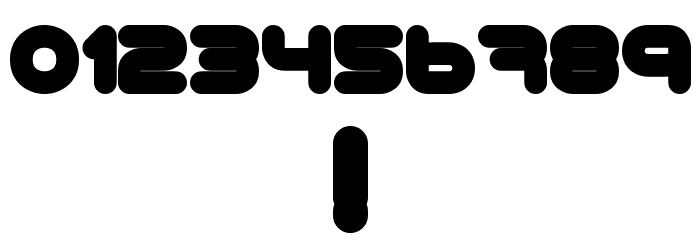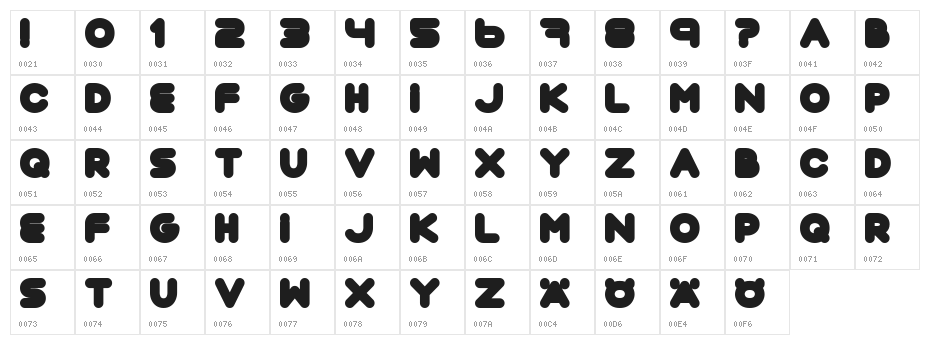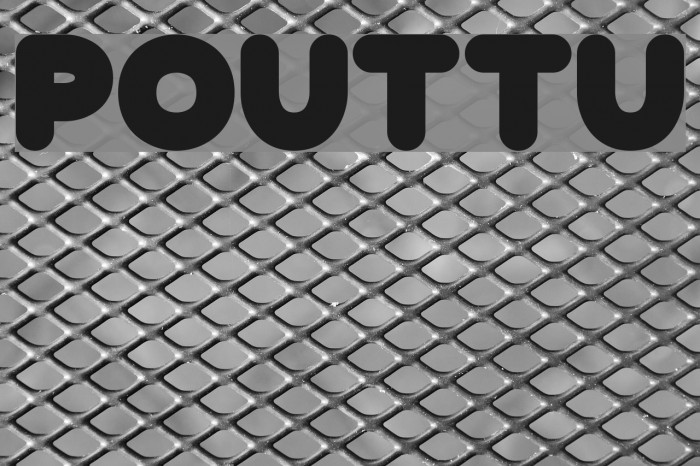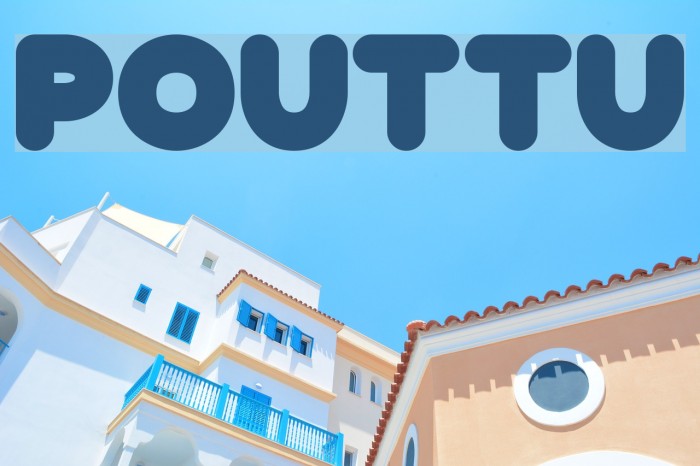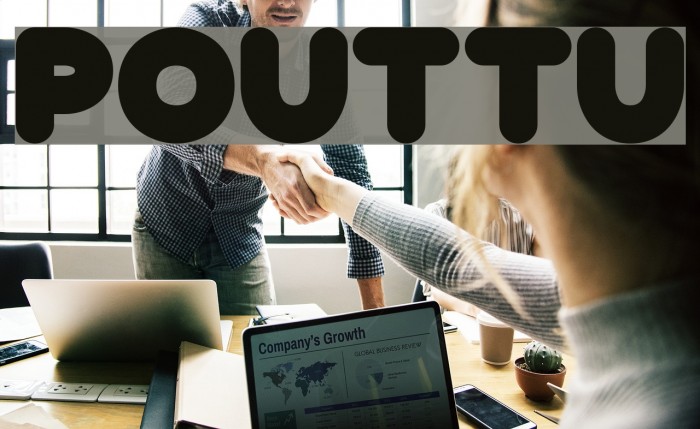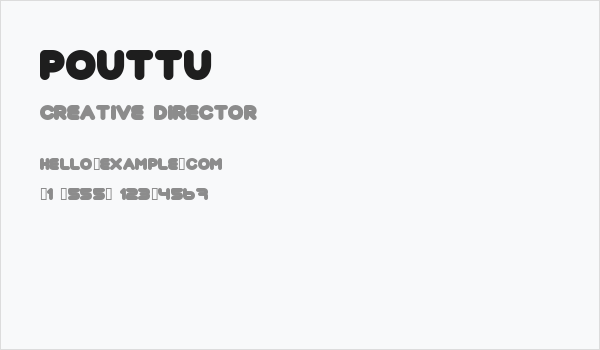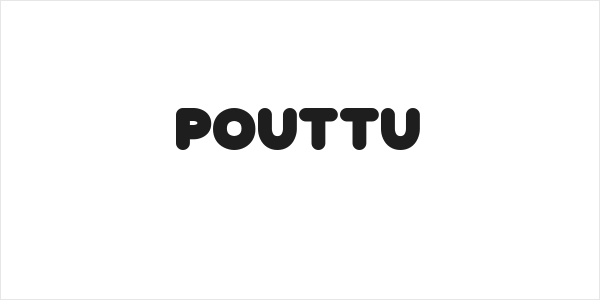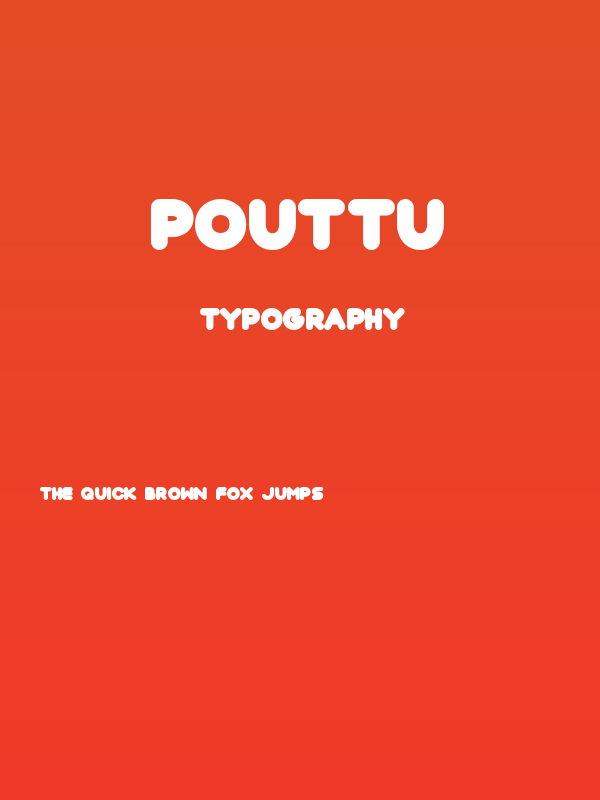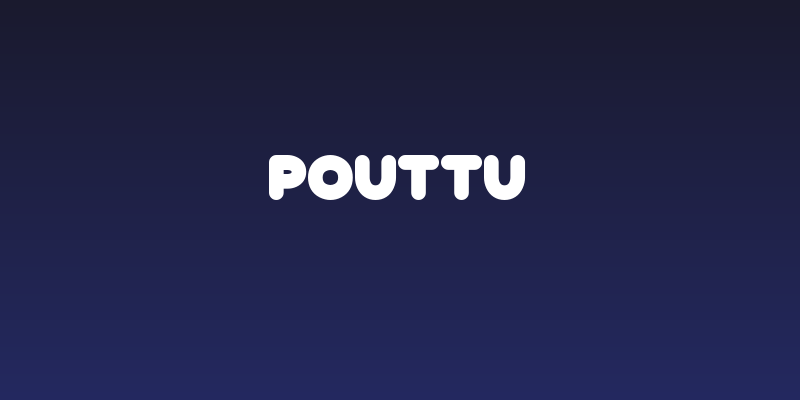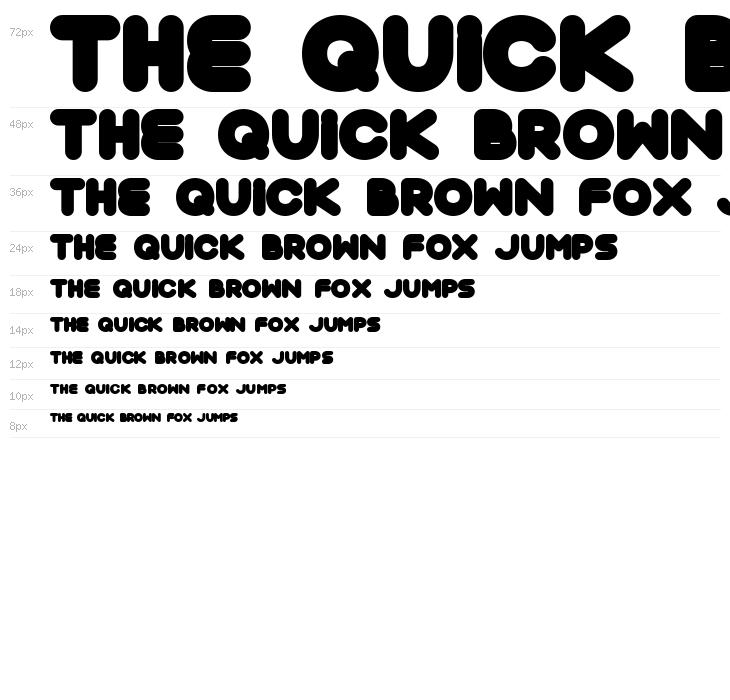
Pouttu Font
Pouttu Description
This font features a bold, rounded style with a playful and modern aesthetic. Each character is crafted with thick strokes and smooth curves, creating a sense of friendliness and approachability. The letters are evenly spaced, contributing to a clean and cohesive appearance. The font's uniform stroke weight and lack of serifs give it a contemporary feel, while the rounded edges add a touch of softness. This design is highly legible, making it suitable for various applications where clarity and impact are desired.